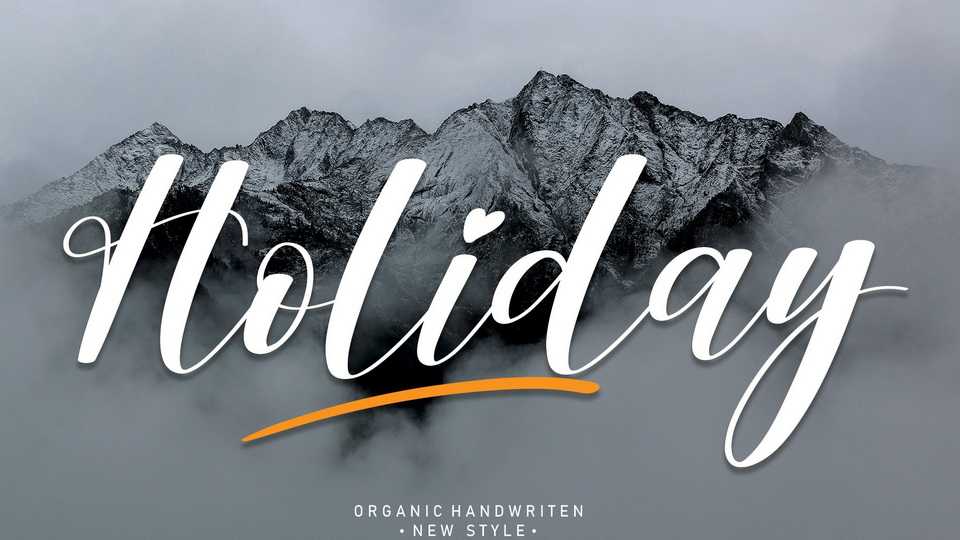
Download Holiday font, a lovely and delicate handwritten typeface. Holiday font has a wide spectrum of applications ranging from greeting cards to headlines and is guaranteed to add a romantic feel to your next project.